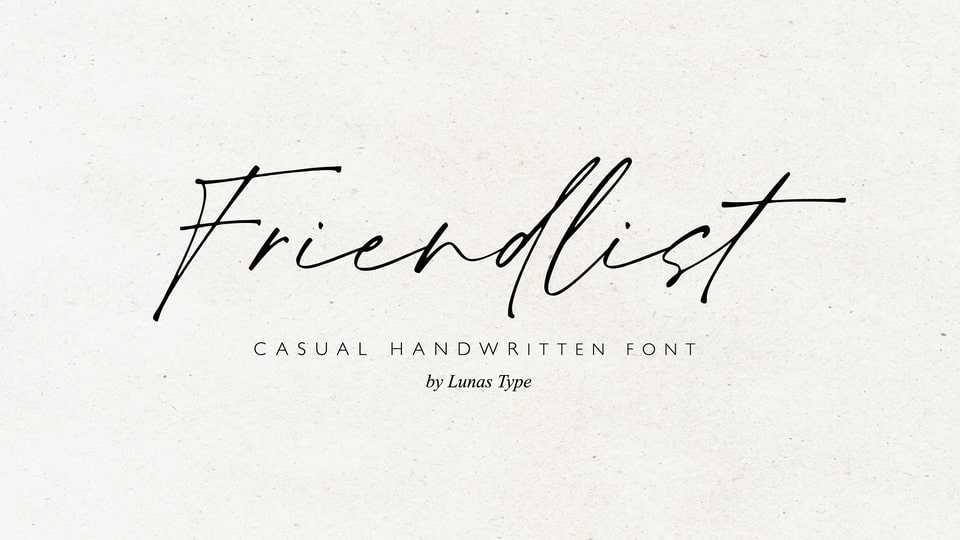
Download Friendlist font, a elegant signature typeface with natural flow and realistic look. Each letter is deliberately imperfect to make Friendlist font look more organic and charming.
Designer: Lunas Type